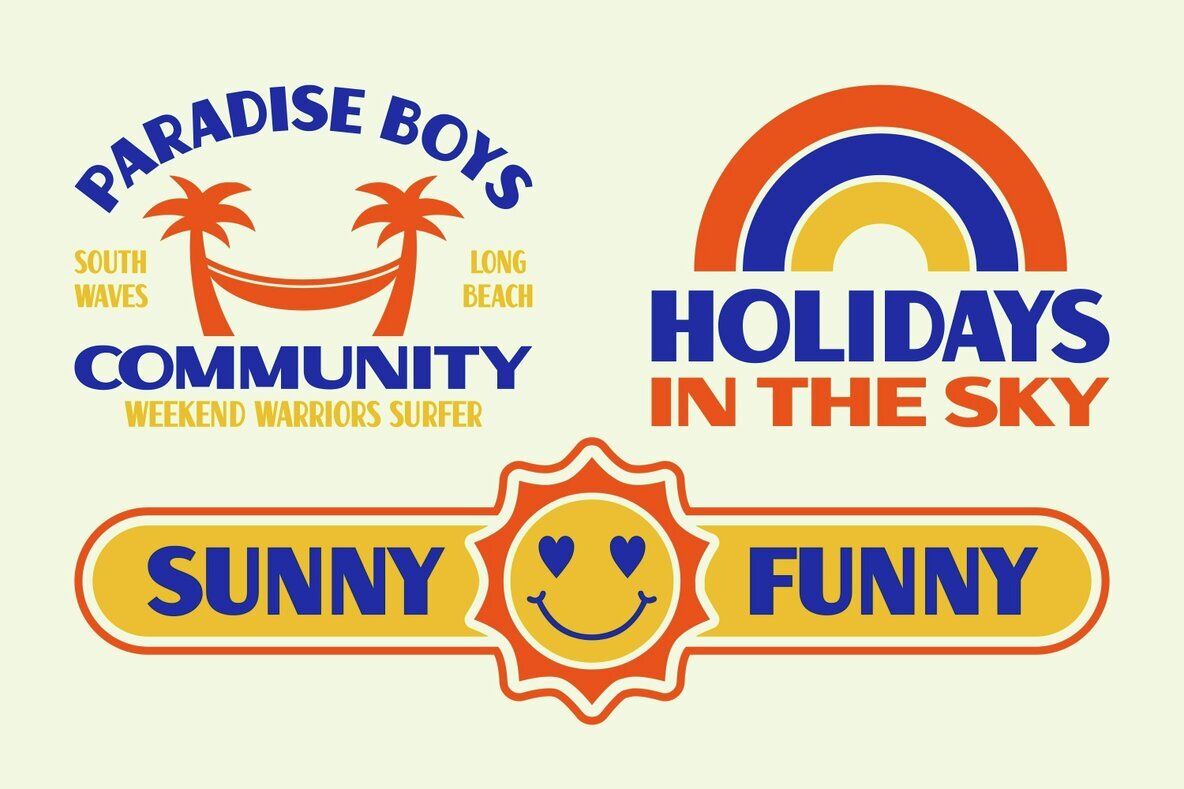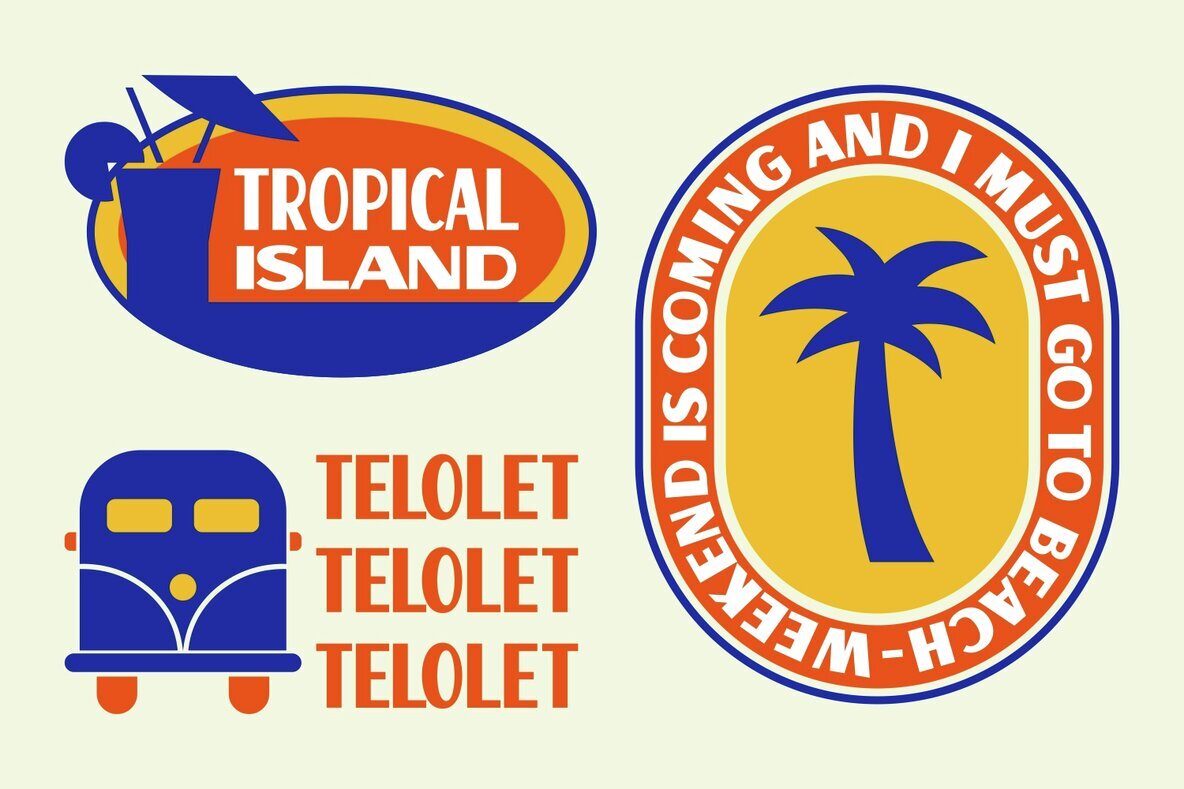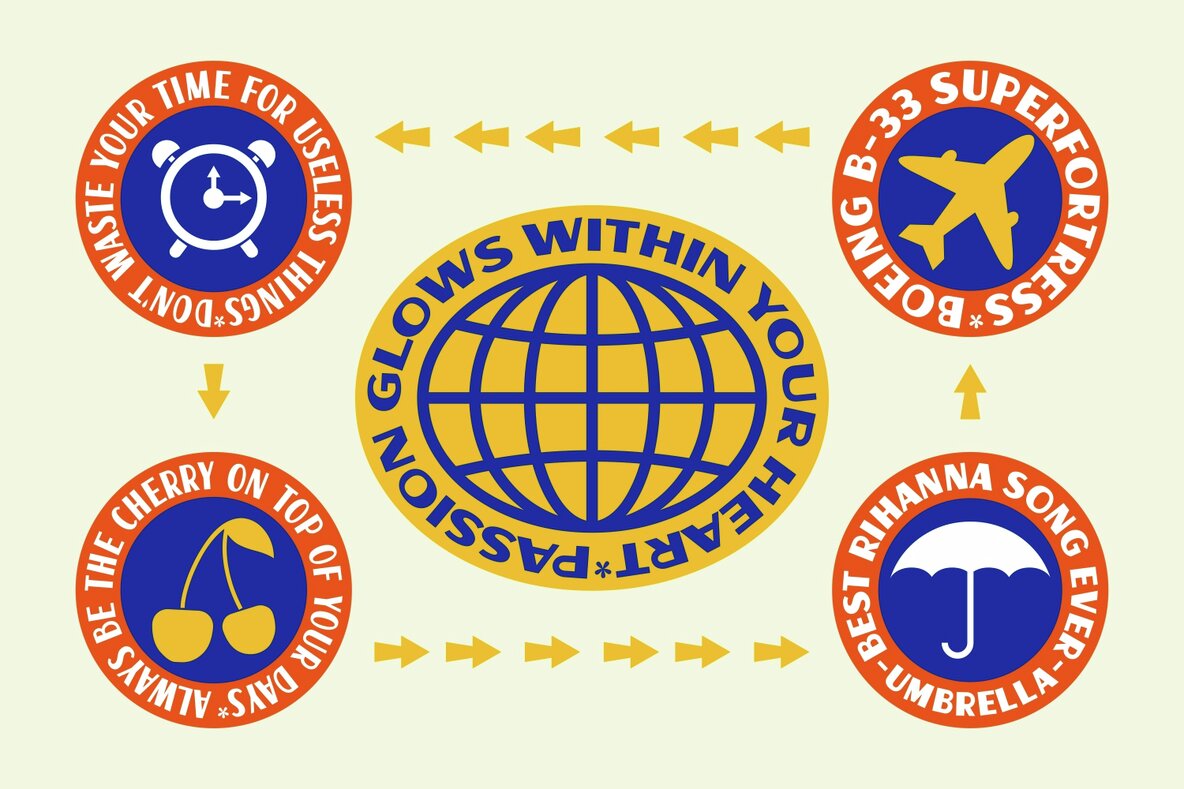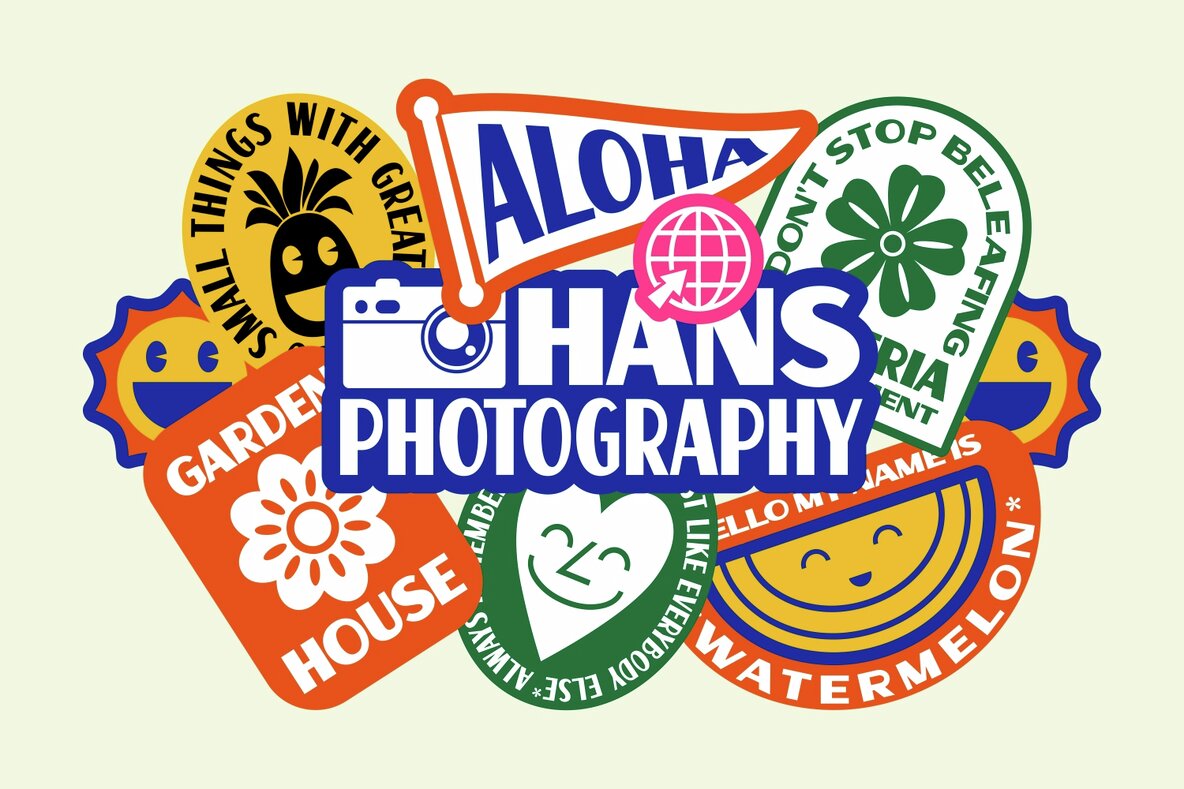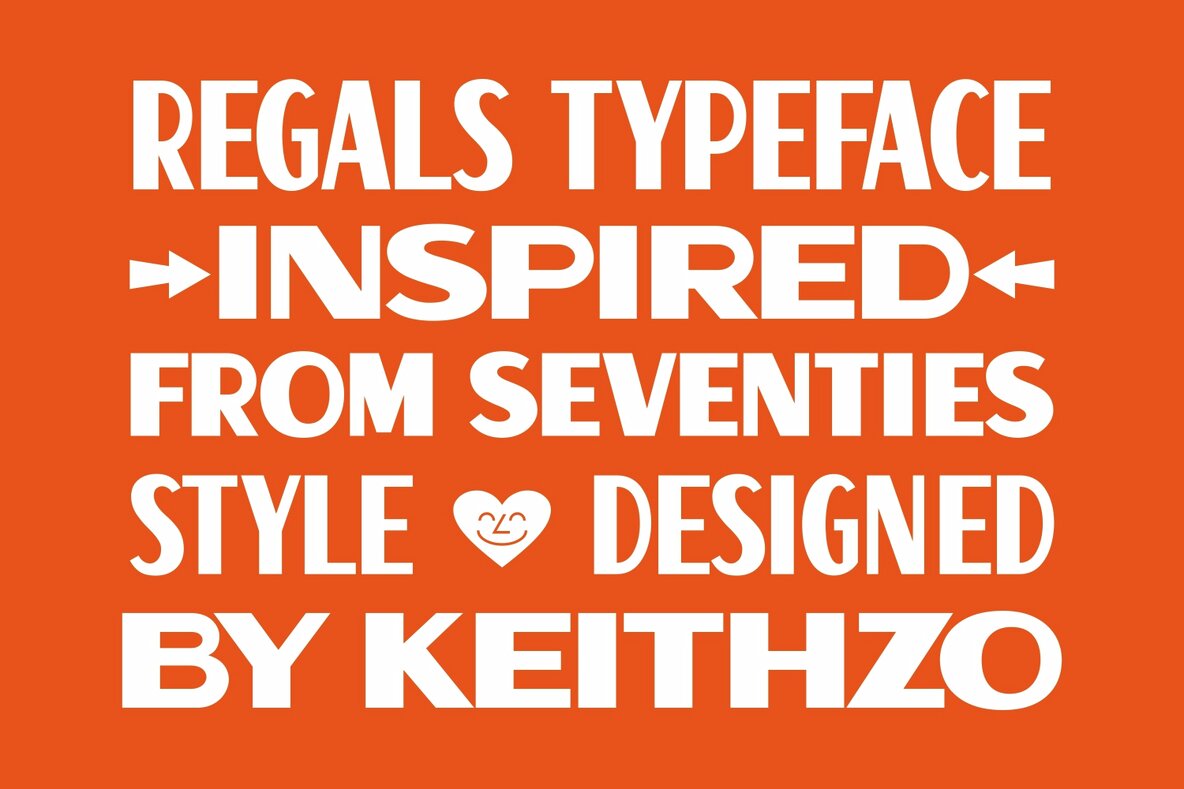
Regals Font
Regals is elegant and clean, but also nostalgic. This versatile display font has a wide range of applications ranging from branding to headlines and is guaranteed to add a retro touch to your next design. It also features a wealth of special features including alternate glyphs and ligatures.